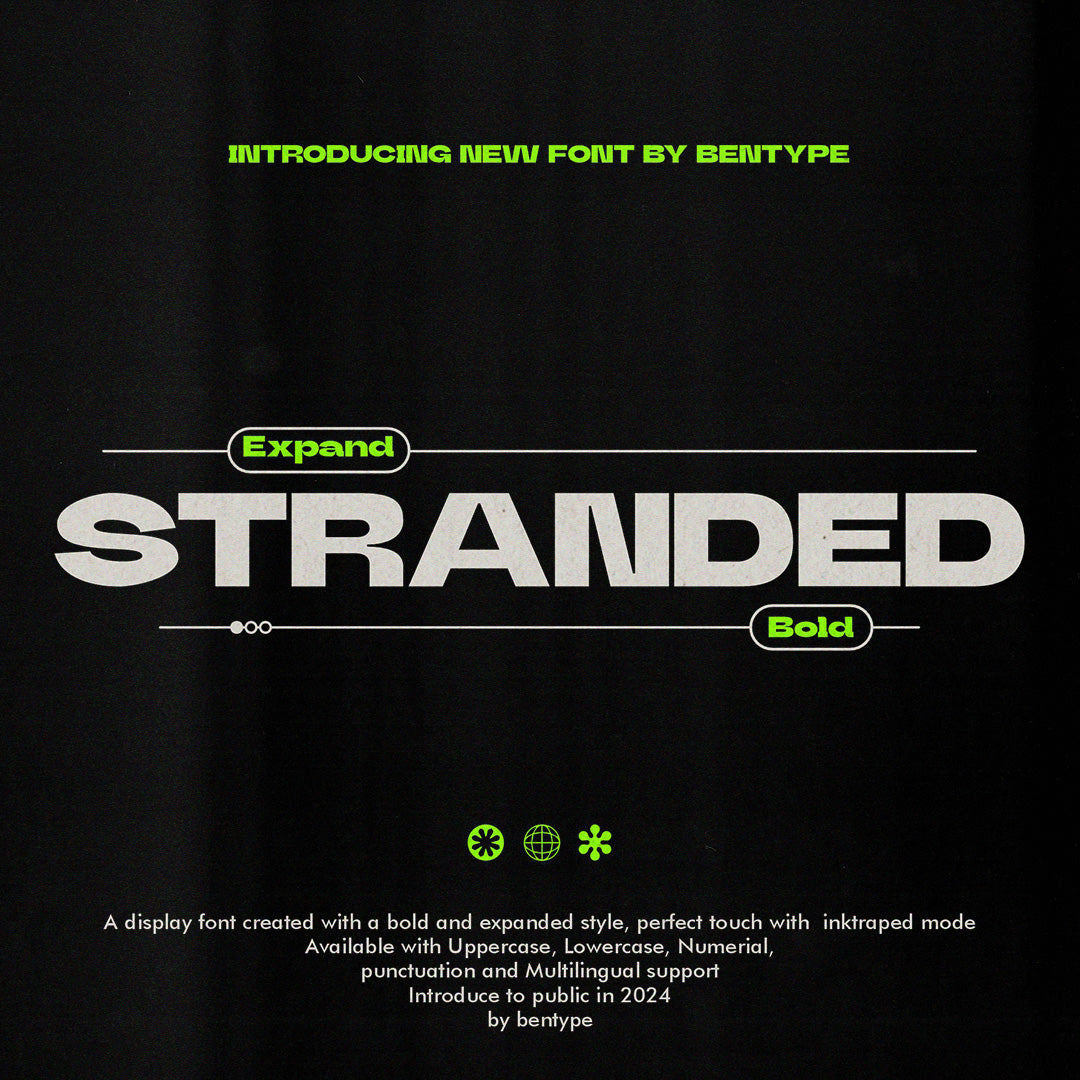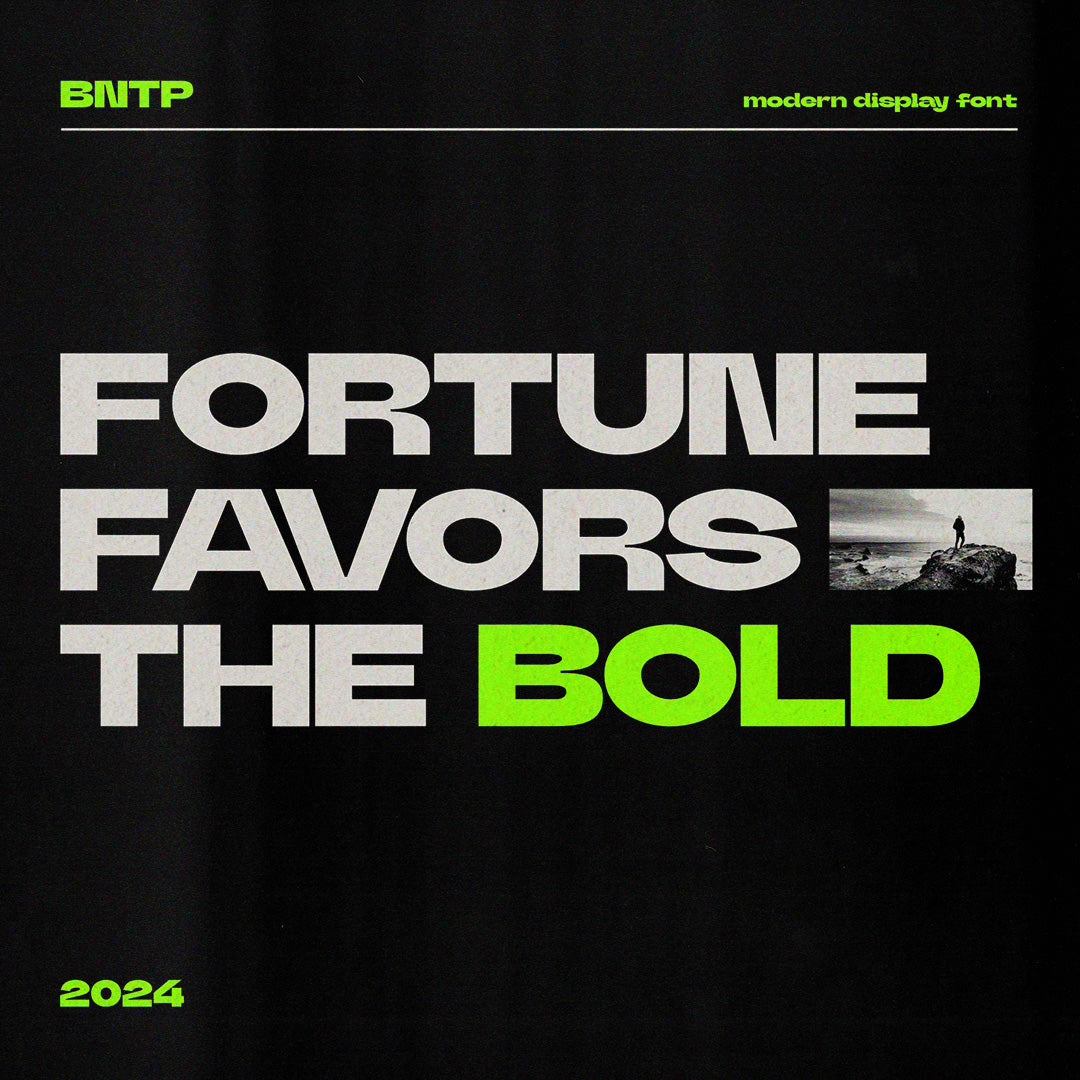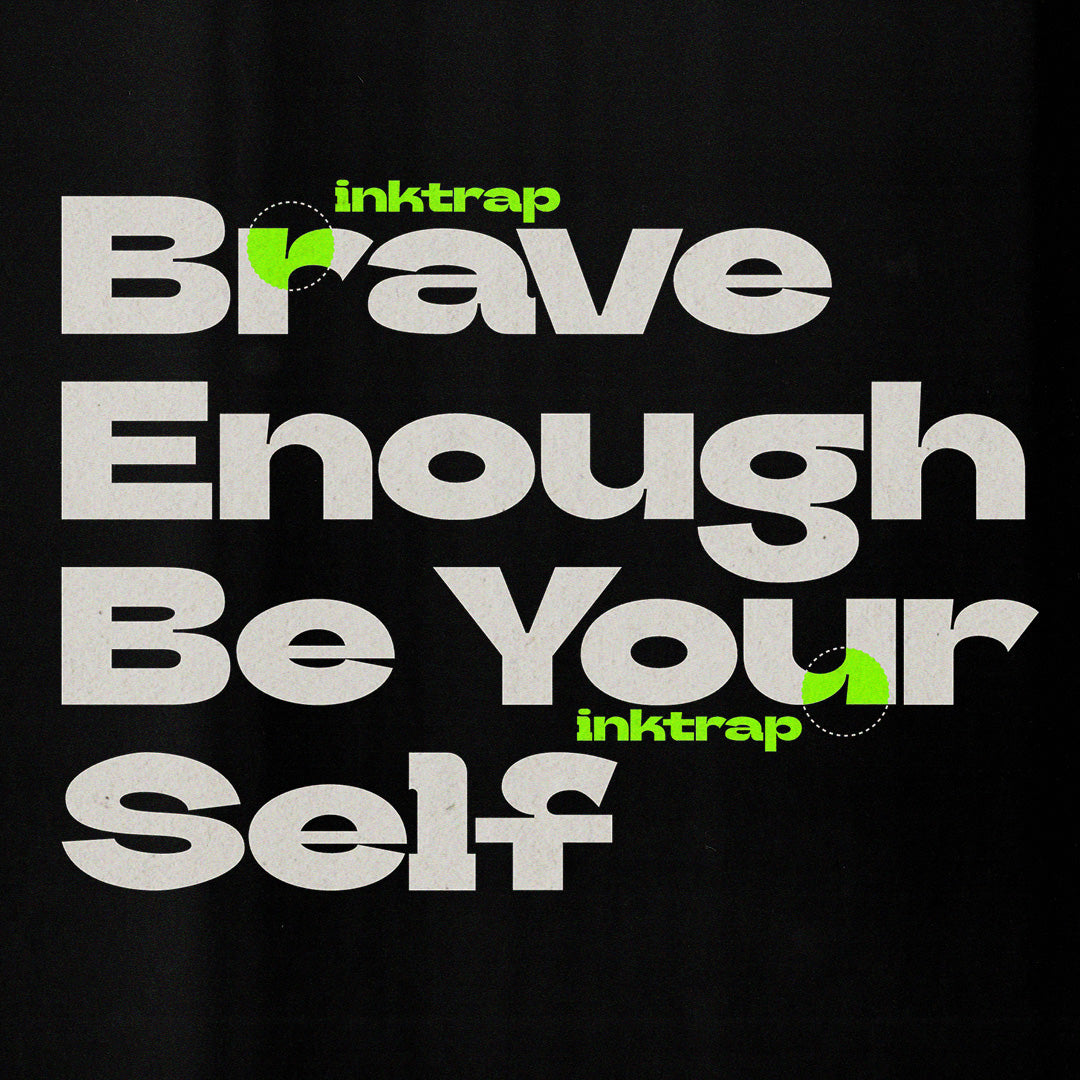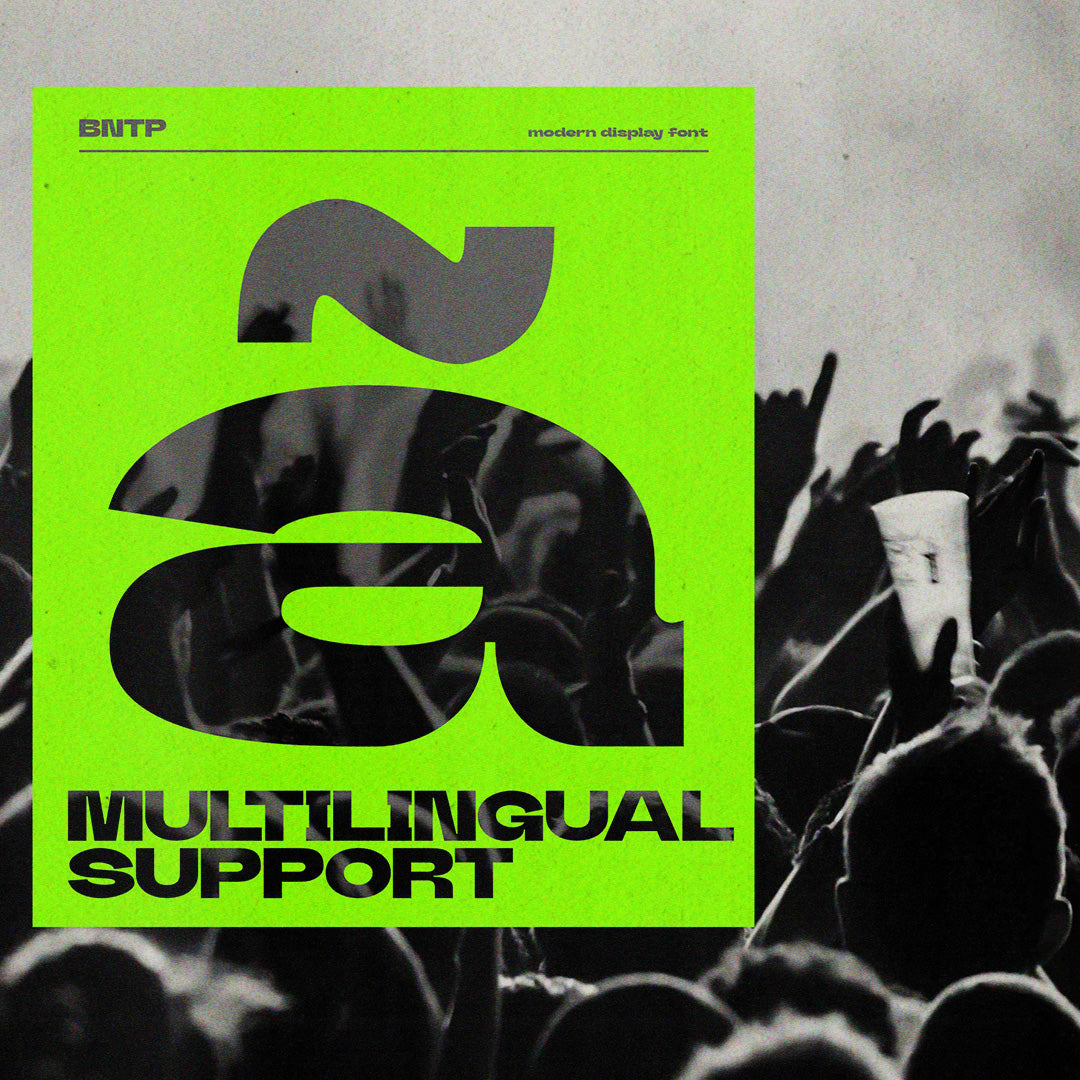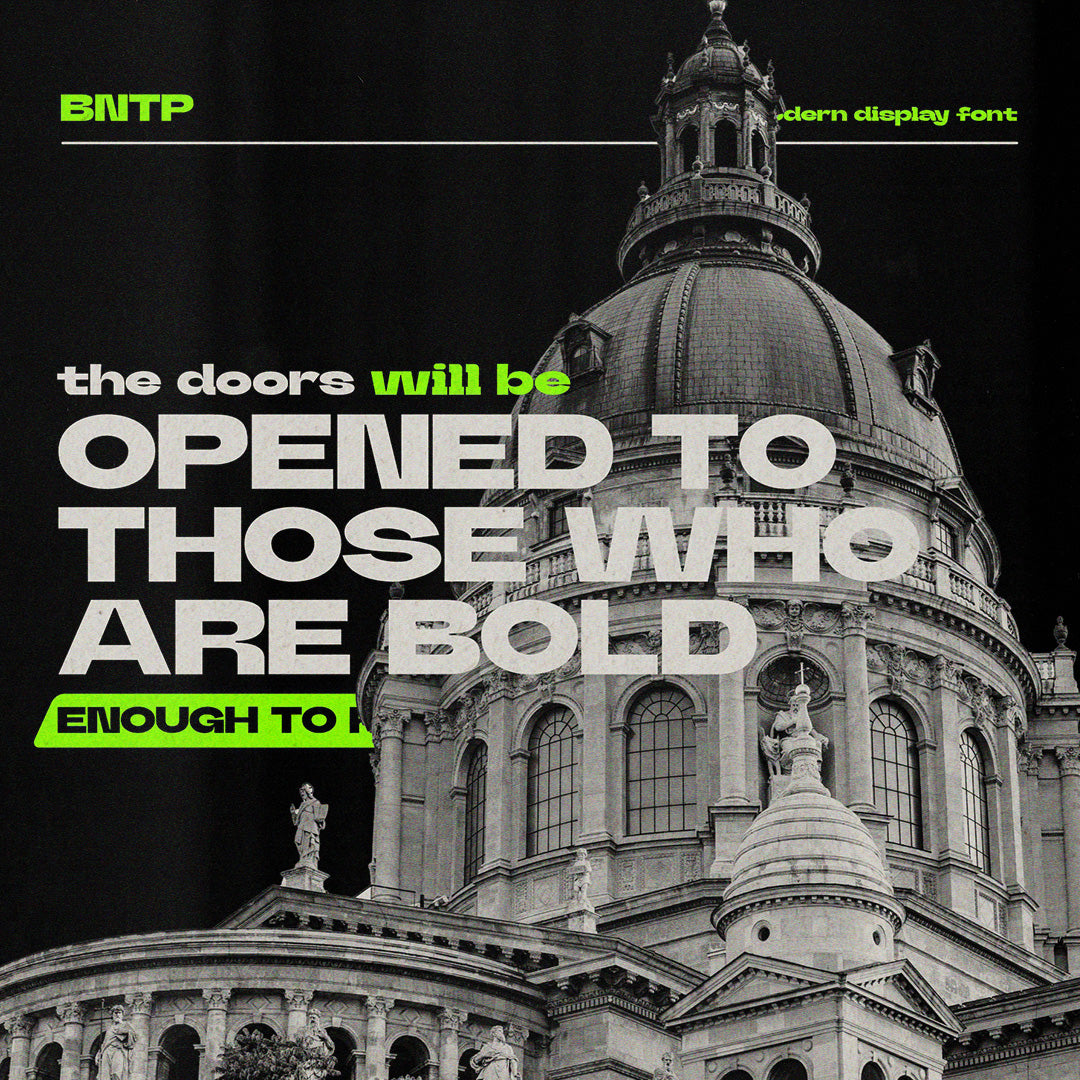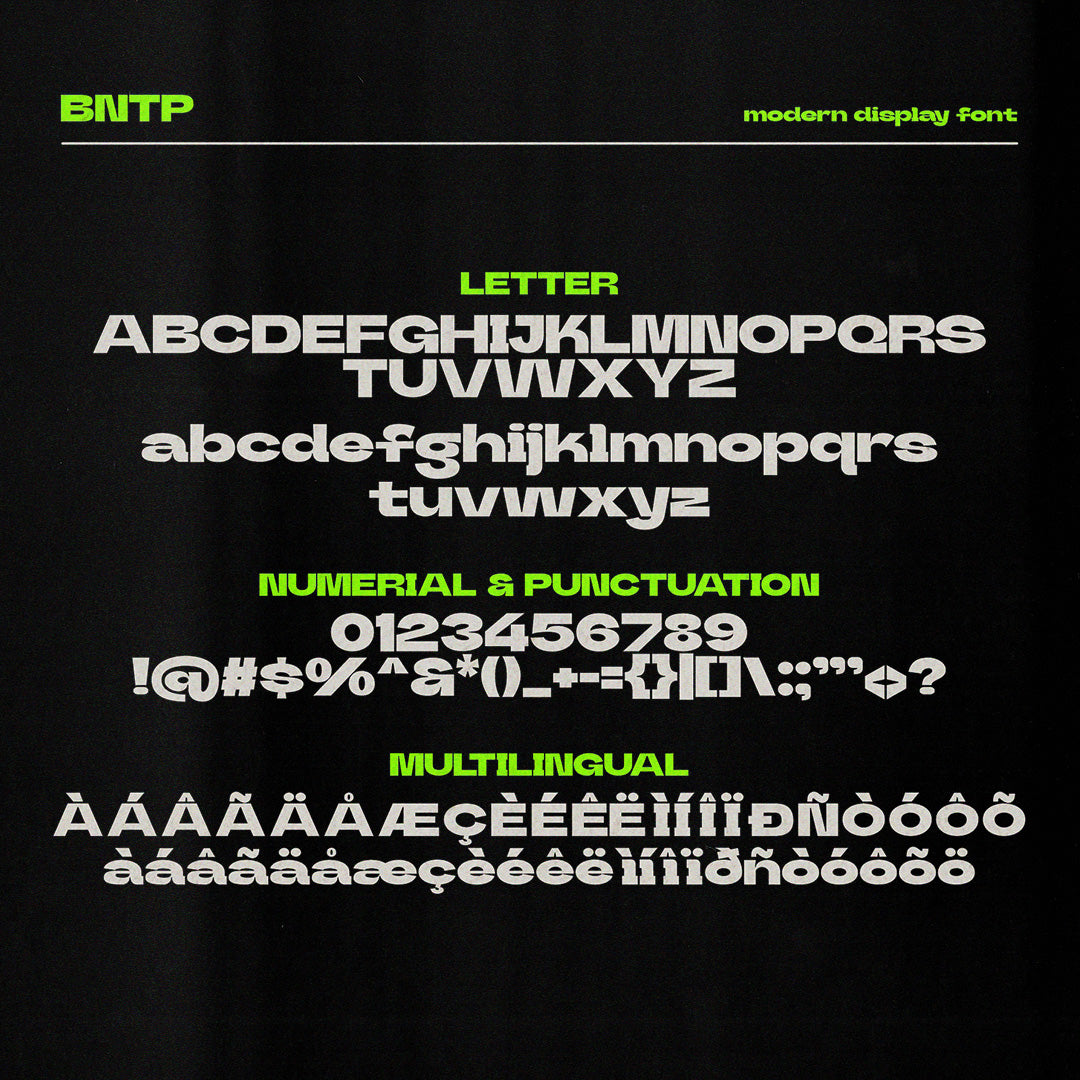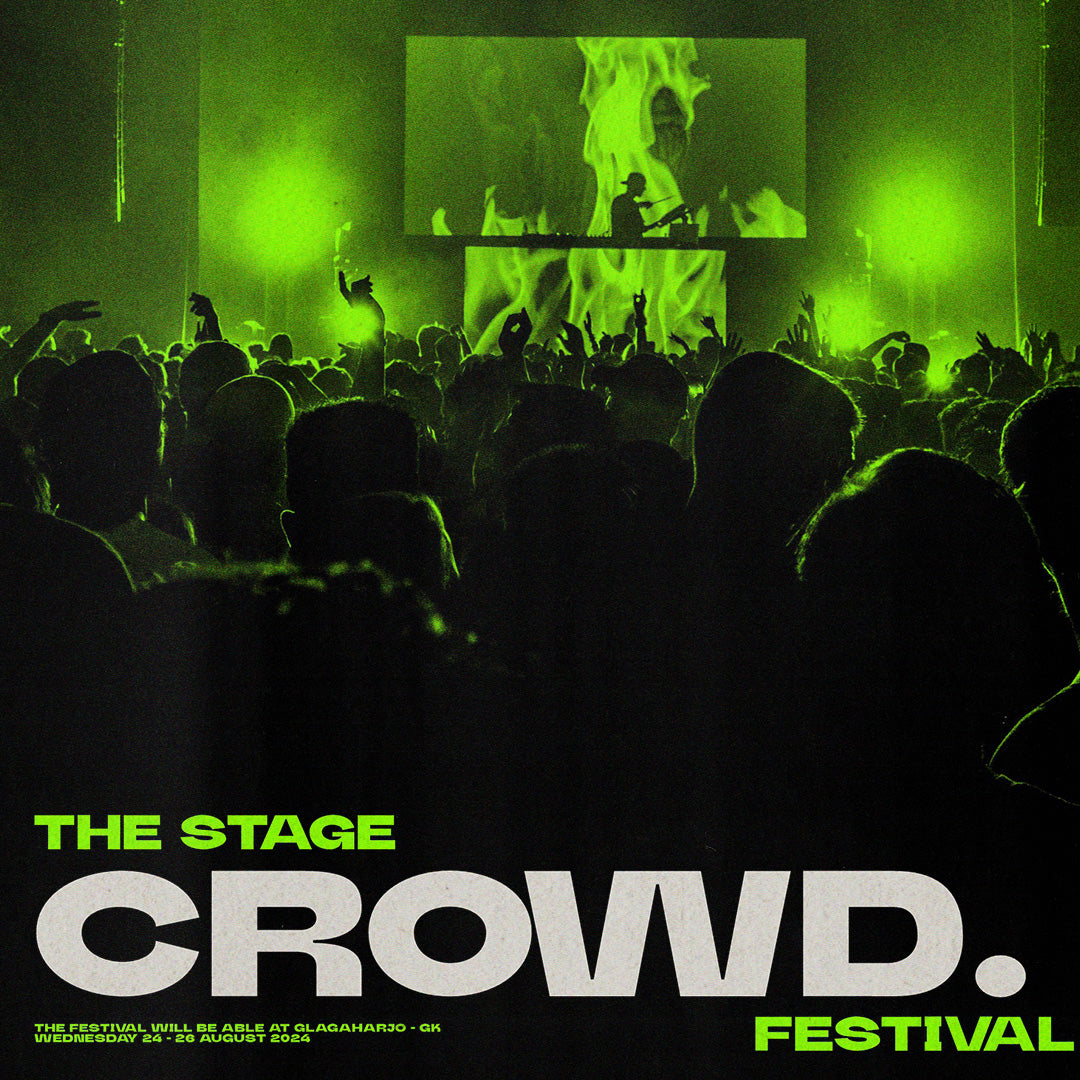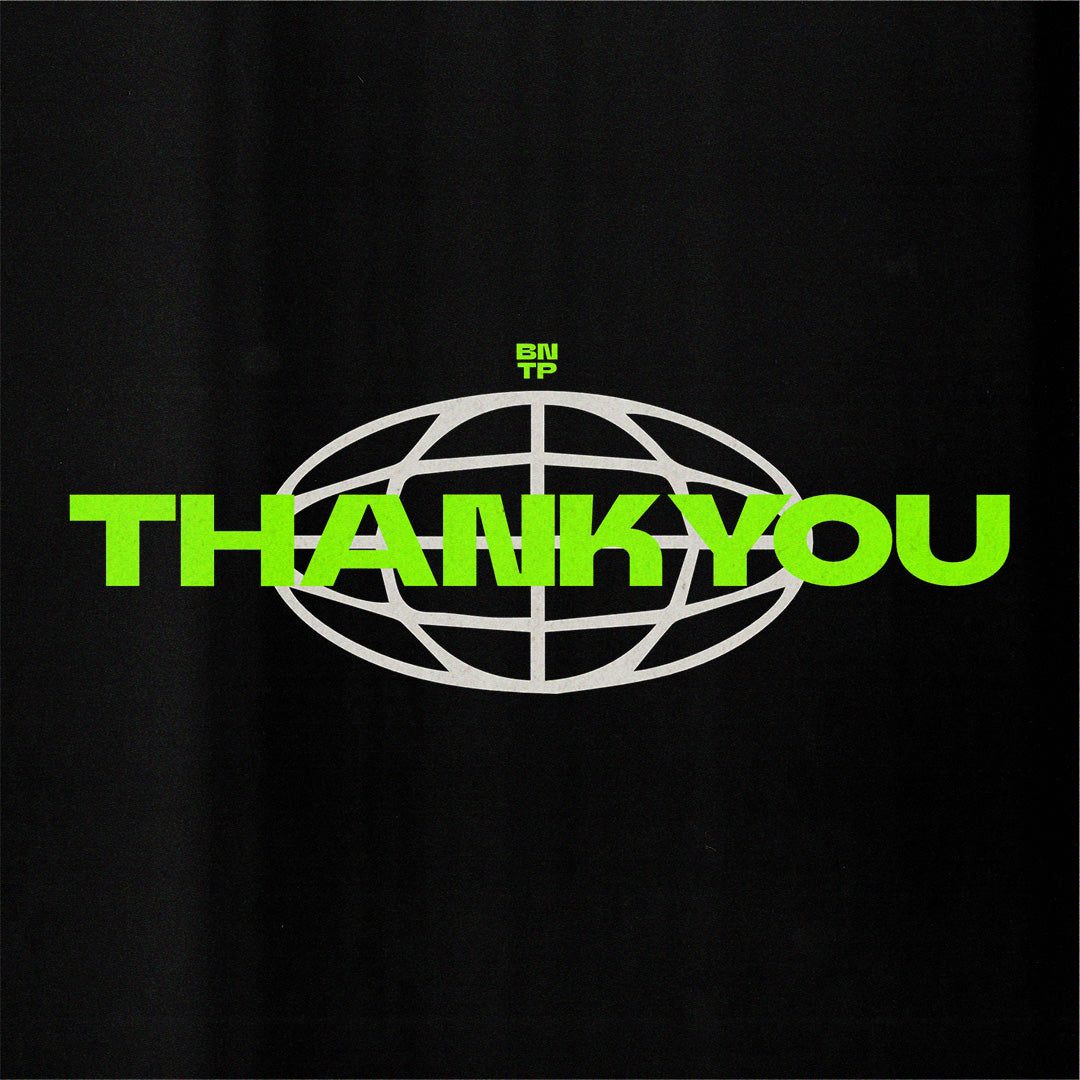
Stranded - Expanded Display Font
Stranded - Expanded Display Font is Inktraped bold font style or font weight that is characterized by exceptionally thick and heavy letterforms. It is a bolder and more prominent version of a particular typeface compared to its regular, bold, or semi-bold counterparts. Extra bold fonts are often used for emphasis, headlines, or to grab the reader's attention due to their substantial and heavy appearance. Suitable for use as a headline, poster design, tshirt, event design, etc.
Uppercase & lowercase
Numbers and punctuation
Stranded - Expanded Display Font is an extra bold, inktrapped display typeface featuring exceptionally thick, heavy letterforms. It includes uppercase and lowercase characters, numbers, punctuation, and multilingual support.